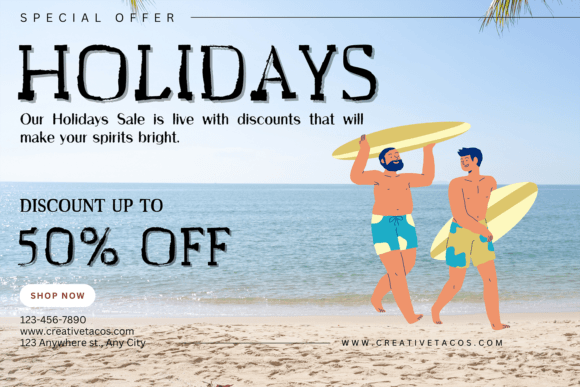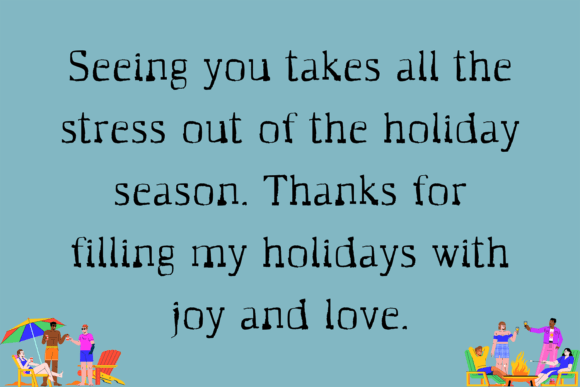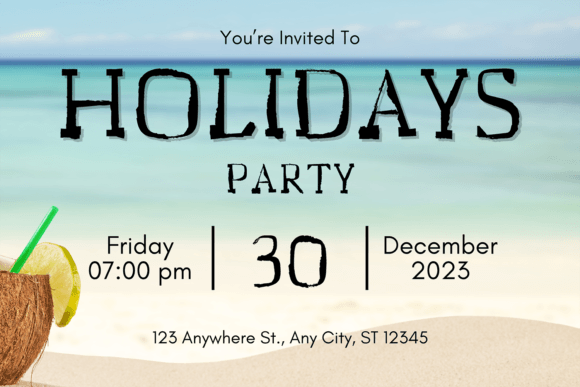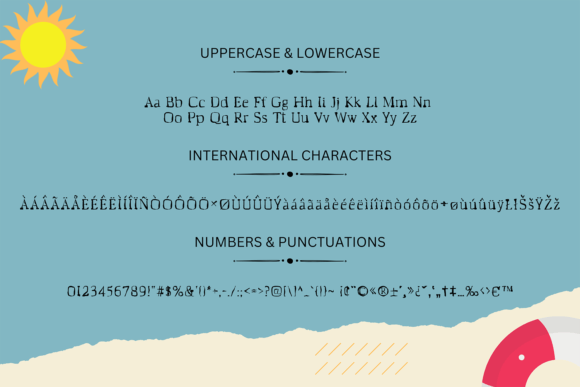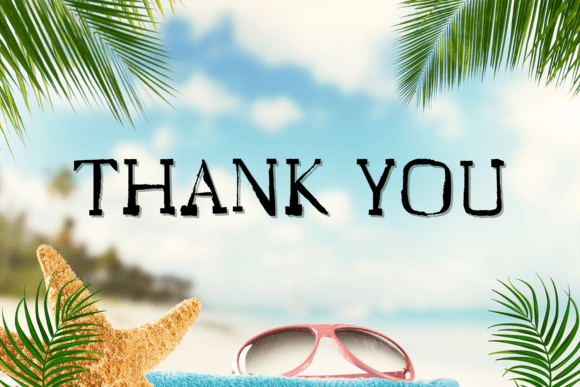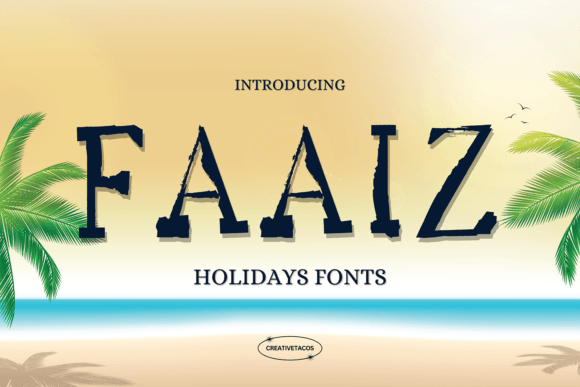
Introducing Faaiz Holidays Font: The Ultimate Textured Brush Font for Your Holiday Design Projects
Are you tired of using the same old fonts for your holiday design projects? Do you want to add a touch of joy and celebration to your creations? Look no further than Faaiz Holidays Font, a stylish and professional textured brush font that’s perfect for capturing the spirit of the holiday season. In this article, we’ll take a closer look at the features and benefits of Faaiz Font, and explore how you can use it to elevate your holiday designs.
What is Faaiz Font?
Faaiz Font is a beautifully crafted textured brush font that’s specifically designed to evoke the feeling of joy and celebration. With its unique blend of elegance and playfulness, this font is perfect for creating a wide range of holiday designs, from invitations and greeting cards to logos, posters, and more.
One of the standout features of Faaiz Font is its versatility. Available in both capital and small letters, numbers, punctuation, and symbols, this font offers everything you need to create stunning holiday designs. Plus, with Latin extended character support, you can use Faaiz Font to create designs in multiple languages.
Key Features of Faaiz Font
- Textured Brush Design: Faaiz Font features a unique textured brush design that gives your holiday designs a warm, hand-crafted feel.
- Capital and Small Letters: This font includes both capital and small letters, giving you the flexibility to create a wide range of designs.
- Numbers, Punctuation, and Symbols: Faaiz Font includes a full set of numbers, punctuation, and symbols, making it easy to create complete and professional-looking designs.
- Latin Extended Character Support: With Latin extended character support, you can use Faaiz Font to create designs in multiple languages.
How to Use Faaiz Font in Your Holiday Designs
Faaiz Font is incredibly easy to use, and can be incorporated into a wide range of holiday designs. Here are just a few ideas to get you started:
- Holiday Invitations: Use Faaiz Font to create beautiful and festive holiday invitations that will set the tone for your celebrations.
- Greeting Cards: Add a personal touch to your holiday greeting cards with Faaiz Font, and make them truly special.
- Logos and Branding: Use Faaiz Font to create a unique and festive logo for your business or brand, and stand out from the crowd.
- Posters and Flyers: Create eye-catching posters and flyers with Faaiz Font, and promote your holiday events and sales.
- Website Designs: Add a touch of holiday cheer to your website with Faaiz Font, and create a festive and welcoming atmosphere for your visitors.
Why Choose Faaiz Font?
So why choose Faaiz Font for your holiday design projects? Here are just a few reasons:
- Unique and Festive Design: Faaiz Font features a unique and festive design that’s perfect for capturing the spirit of the holiday season.
- High-Quality and Professional: This font is designed to high-quality and professional standards, ensuring that your designs look amazing and polished.
- Easy to Use: Faaiz Font is incredibly easy to use, and can be incorporated into a wide range of designs and projects.
- Great Value: With its versatility and range of features, Faaiz Font offers great value for designers and crafters.
If you’re looking for a stylish and professional textured brush font for your holiday design projects, look no further than Faaiz Holidays Font. With its unique blend of elegance and playfulness, this font is perfect for capturing the spirit of joy and celebration. Whether you’re creating holiday invitations, greeting cards, logos, or posters, Faaiz Font is the perfect choice. So why wait? Download Faaiz Font today, and start creating stunning holiday designs that will leave a lasting impression.